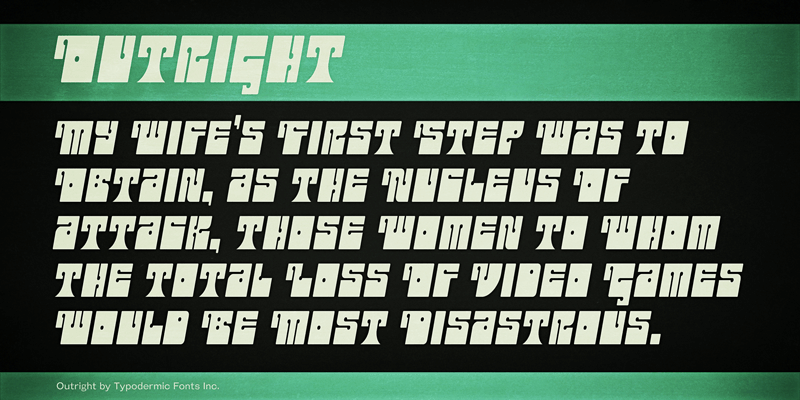
Font name: | Outright |
Outright is a art nouveau gallimaufry with a fuzzy-logic spin. This font includes a license that allows free commercial use: sometimes referred to as a desktop license. This allows you to install the font on a computer and use it to create posters, web graphics, game graphics, t-shirts, videos, signs, logos and more. Read the license agreement for details. If you'd like to embed this font in an app, ebook, on the web or anything that's not covered by the desktop license agreement, visit the link below. You'll find distributors who offer different types of licenses or you can contact me for help. http://typodermicfonts.com/outright/ |